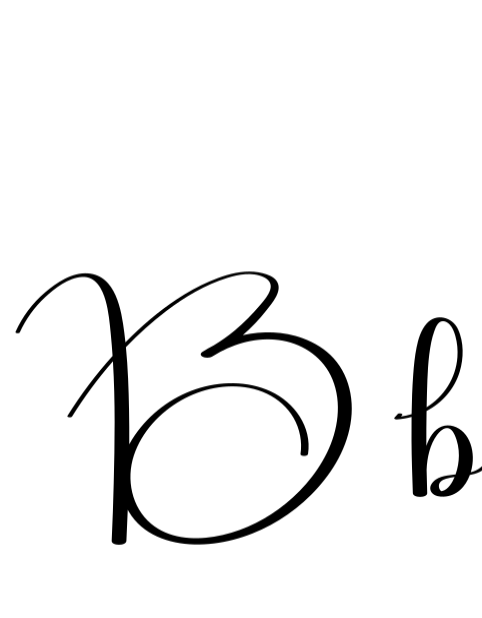
Baby Danila Font: A Playful and Friendly Handwritten Font
Baby Danila font is a delightful and charming handwritten font that exudes warmth and friendliness. Its light and playful appearance makes it perfect for a variety of creative projects, including cards, invitations, and other personal materials. In this article, we’ll explore the features and benefits of Baby Danila font, and discuss how it can add a personal touch to your designs.
What is Baby Danila Font?
Baby Danila font is a type of handwritten font that is designed to look like it was drawn by hand. Its thin letters have a cute and endearing quality, making it ideal for projects that require a personal and approachable feel. The font’s playful appearance is reminiscent of children’s handwriting, which adds to its charm and appeal.
Features of Baby Danila Font
- Handwritten appearance: Baby Danila font has a distinctive handwritten look that sets it apart from other fonts.
- Light and playful: The font’s light and playful appearance makes it perfect for projects that require a friendly and approachable feel.
- Thin letters: The font’s thin letters are cute and endearing, adding to its charm and appeal.
- Warm and friendly feel: Baby Danila font has a warm and friendly feel that makes it perfect for cards, invitations, and other personal materials.
Benefits of Using Baby Danila Font
There are several benefits to using Baby Danila font in your designs. Some of the most significant advantages include:
- Personal touch: Baby Danila font adds a personal touch to your designs, making them more relatable and engaging.
- Emotional connection: The font’s warm and friendly feel helps to create an emotional connection with your audience.
- Versatility: Baby Danila font is versatile and can be used in a variety of creative projects, including cards, invitations, and other personal materials.
- Ease of use: The font is easy to read and use, making it perfect for designers of all skill levels.
Uses of Baby Danila Font
Baby Danila font is perfect for a variety of creative projects, including:
- Cards: The font is ideal for creating personalized cards for special occasions, such as birthdays, weddings, and holidays.
- Invitations: Baby Danila font is perfect for creating invitations for parties, events, and other social gatherings.
- Personal materials: The font can be used in a variety of personal materials, including journals, planners, and other stationery items.
- Digital designs: Baby Danila font can be used in digital designs, such as social media graphics, blog posts, and other online content.
Tips for Using Baby Danila Font
Here are some tips for using Baby Danila font in your designs:
- Use it sparingly: Use Baby Danila font sparingly to add a personal touch to your designs.
- Pair it with other fonts: Pair Baby Danila font with other fonts to create a unique and visually appealing design.
- Experiment with colors: Experiment with different colors to find the perfect combination that complements the font.
- Keep it simple: Keep your design simple and clean to ensure that the font is the focal point.
Baby Danila font is a delightful and charming handwritten font that adds a personal touch to any design. Its light and playful appearance makes it perfect for a variety of creative projects, including cards, invitations, and other personal materials. With its versatility, ease of use, and emotional connection, Baby Danila font is a great addition to any designer’s toolkit.
- What is Baby Danila font? Baby Danila font is a type of handwritten font that is designed to look like it was drawn by hand.